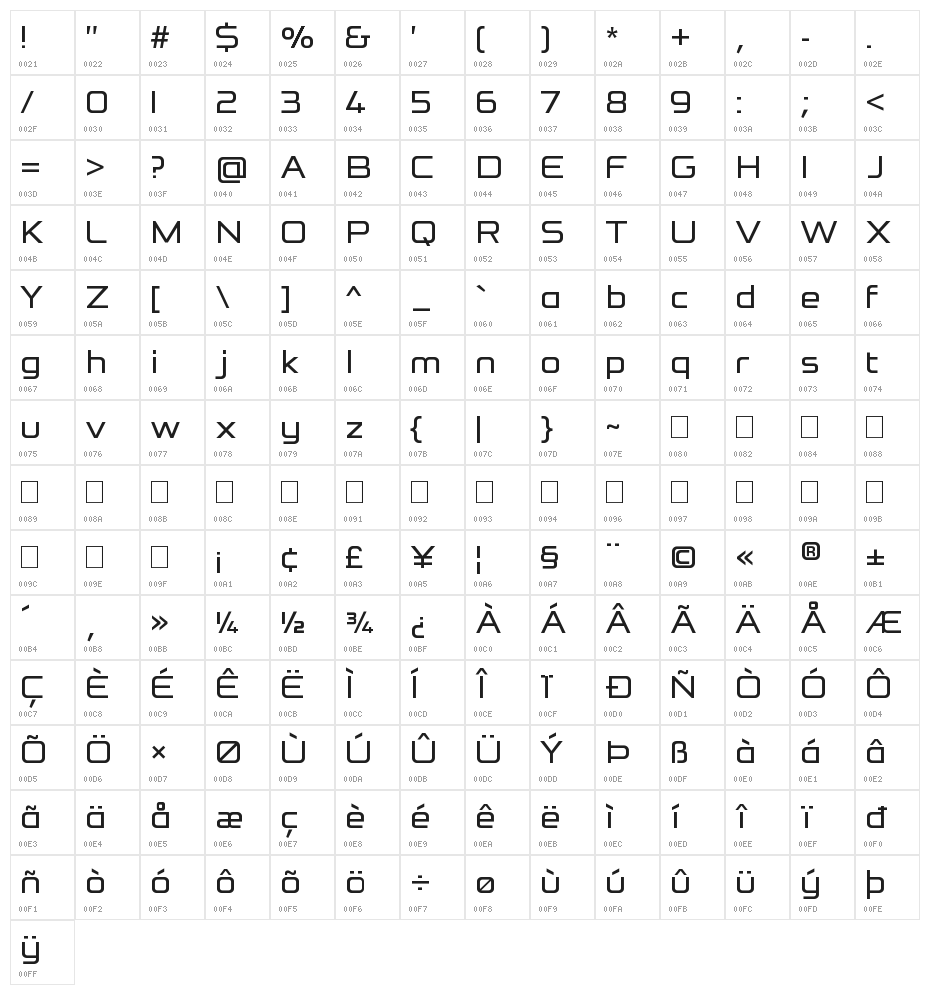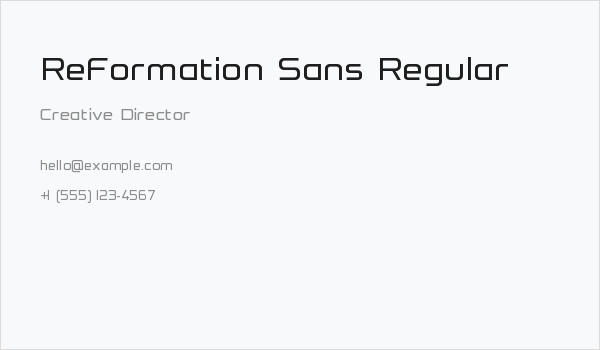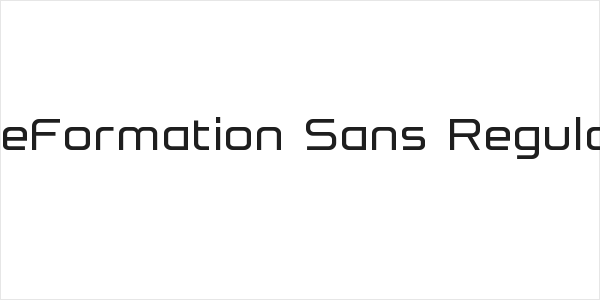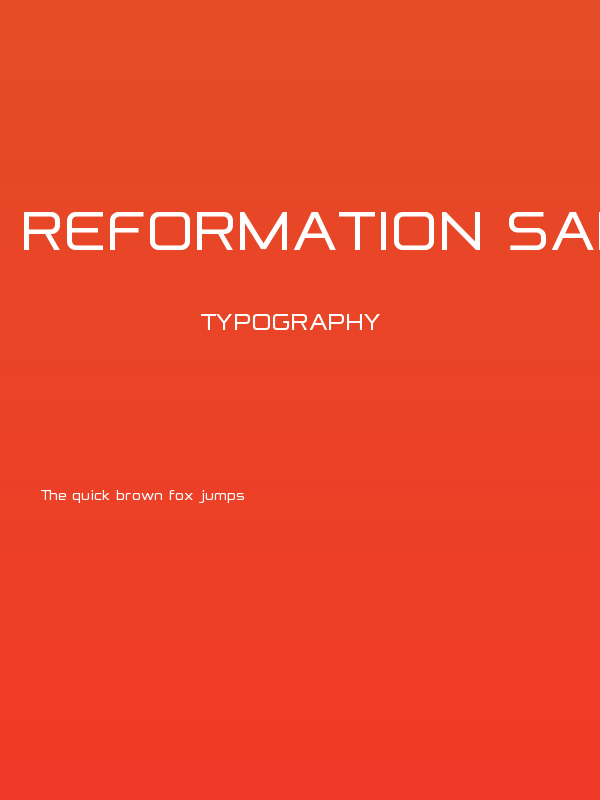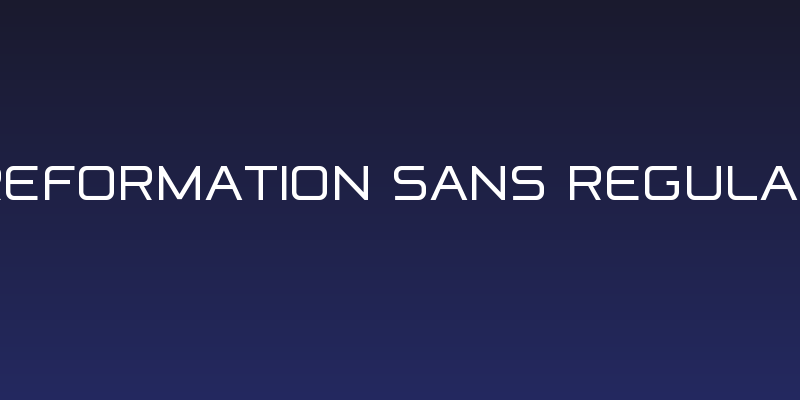
ReFormation Sans Regular Font
ReFormation Sans Regular Description
This font exhibits a clean and modern sans-serif style, characterized by its geometric shapes and uniform stroke widths. The uppercase letters are bold and assertive, while the lowercase letters maintain a consistent height and spacing, ensuring readability. The numerals are distinct and align well with the overall design, making them suitable for various applications. Special characters are crafted with precision, adding to the font's versatility. The overall appearance is sleek and contemporary, making it ideal for digital and print media.